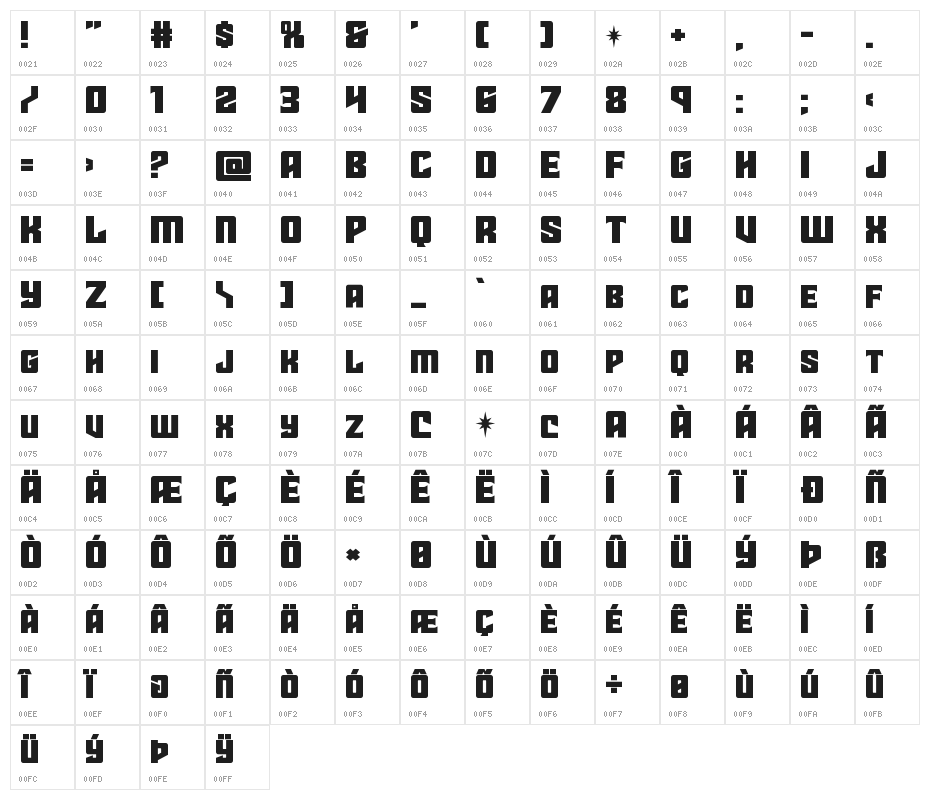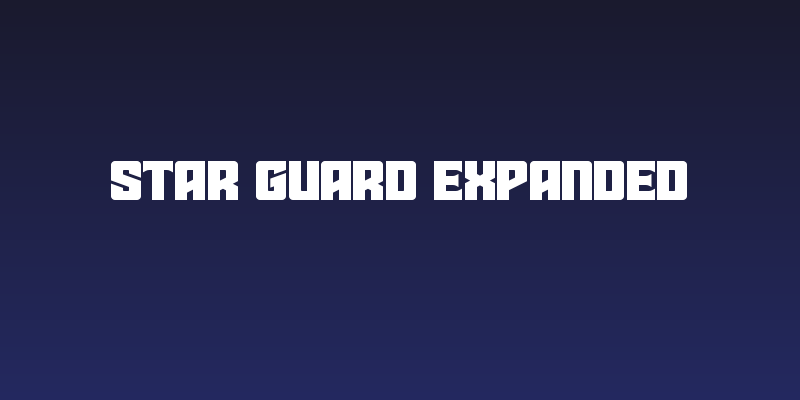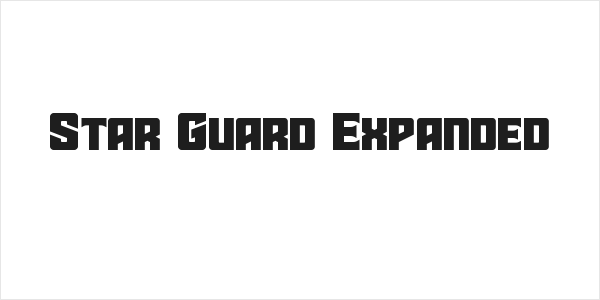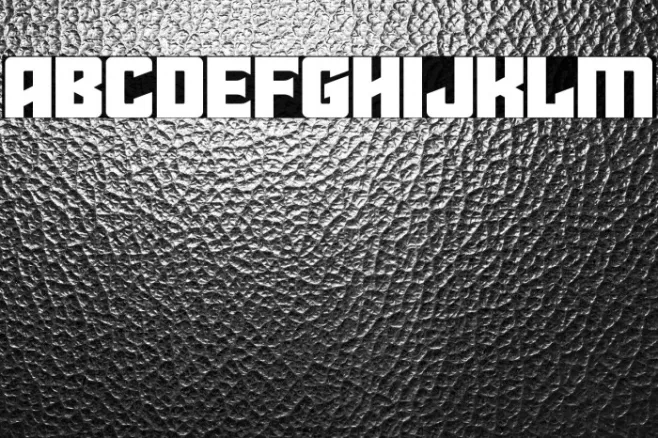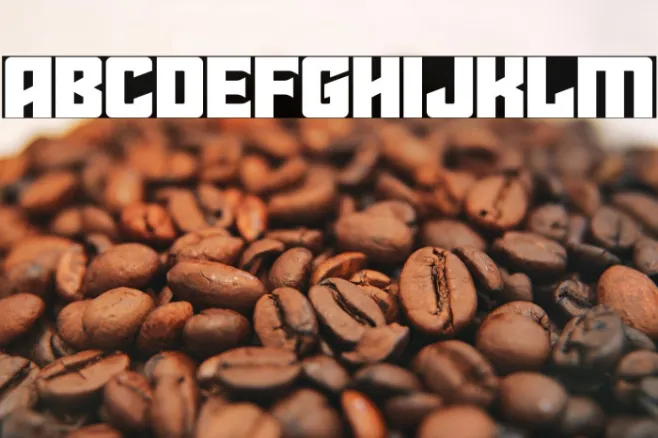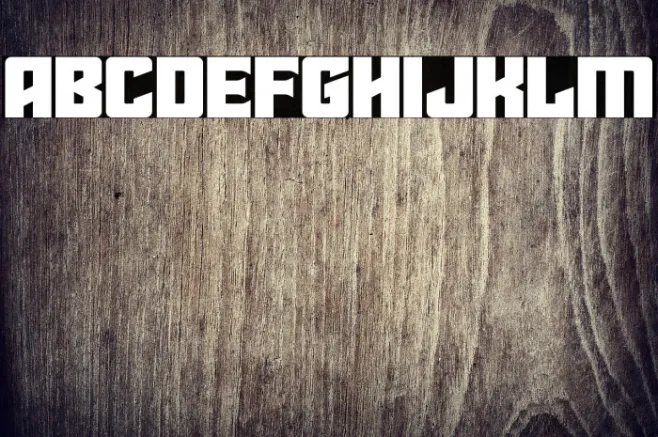
Star Guard Expanded Font
Star Guard Expanded Description
This font features a bold and geometric design with a strong presence. The characters are constructed with thick, block-like shapes that give a futuristic and robust appearance. The angular edges and uniform stroke widths contribute to its modern and industrial feel. The uppercase and lowercase letters maintain a consistent style, while the numerals and special characters are designed to match the overall aesthetic. This font's distinctive style makes it suitable for projects that require a bold and impactful visual statement.
| Proposed Projects | Ideal for branding, posters, video game graphics, and sci-fi themed designs. |